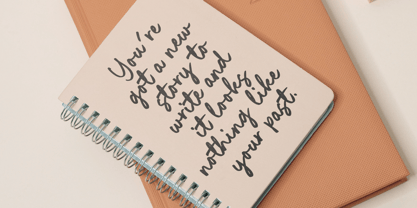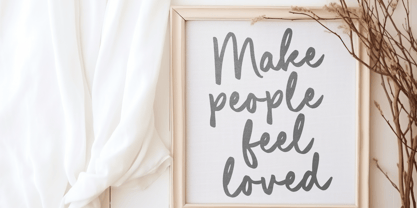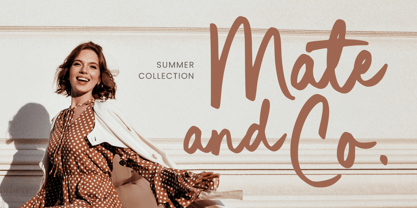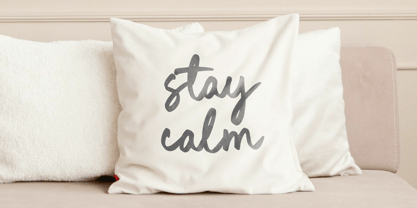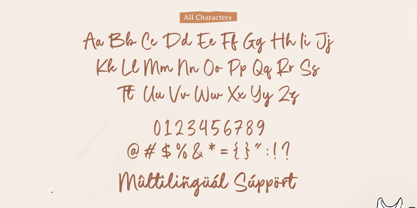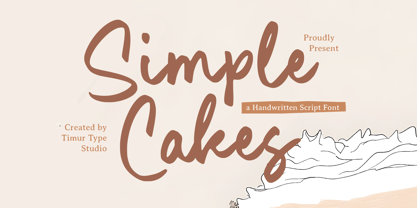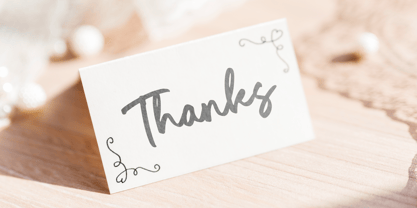
Simple Cakes
by Timurtype
The Simple Cakes Font Family was designed by Wara Sigit Tri Pamungkas and published by Timurtype. Simple Cakes contains 1 styles.
Introduced by Timurtype Studio!
Simple Cakes is a Handwritten Script Font
This font is a charming handwritten script font with a playful and whimsical style. Its smooth curves and natural flow make it perfect for invitations, branding, and creative projects that require a touch of warmth.
Simple Cakes Font also supports multilingualism